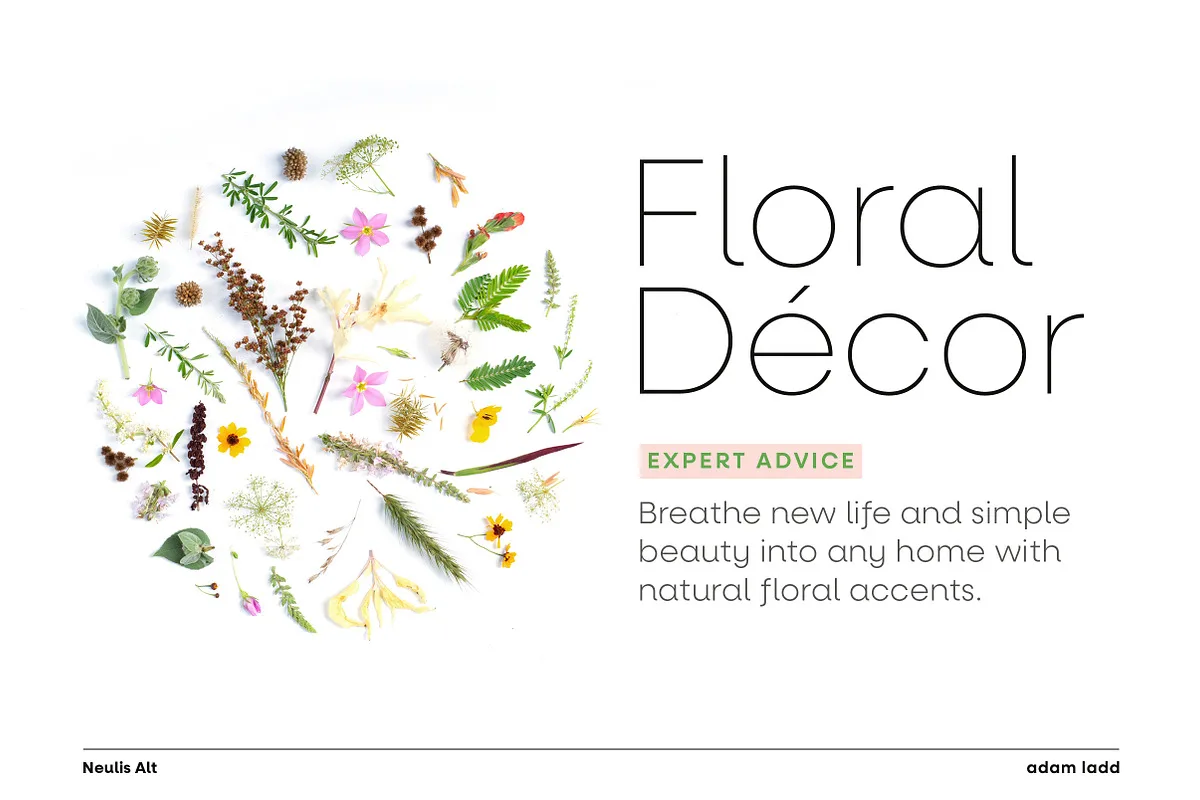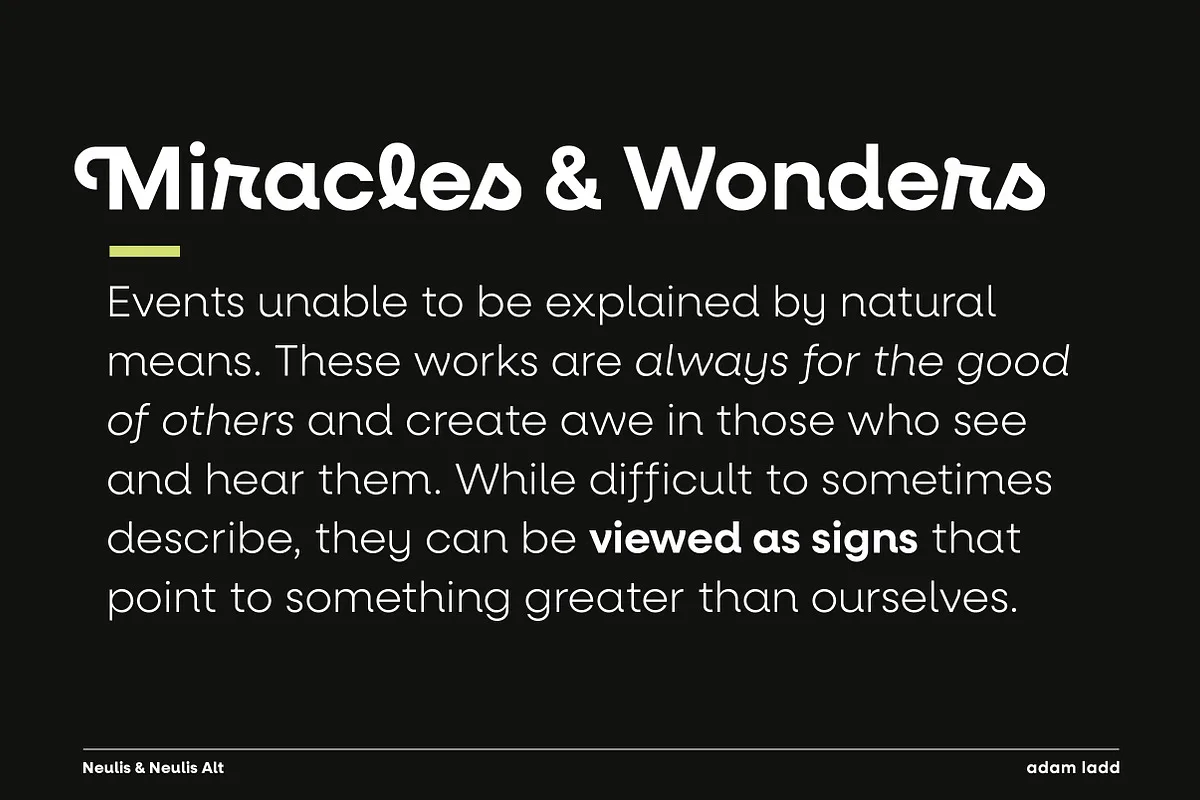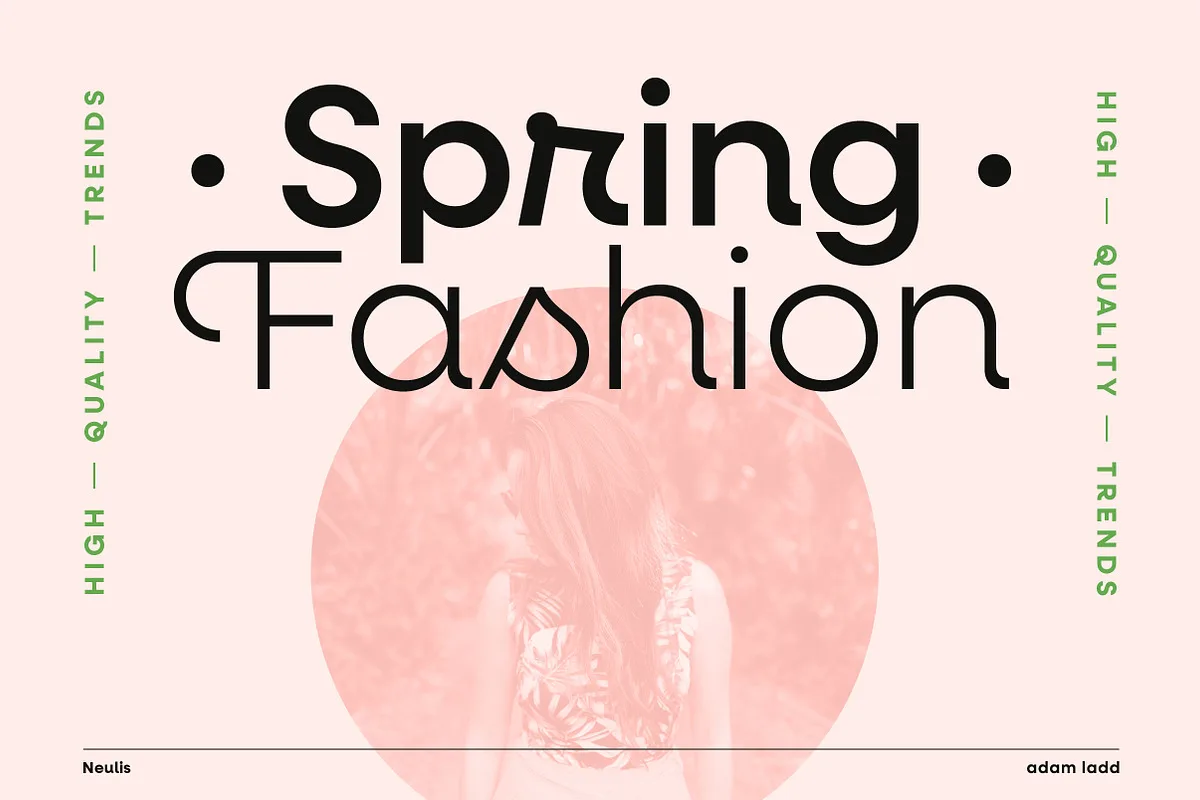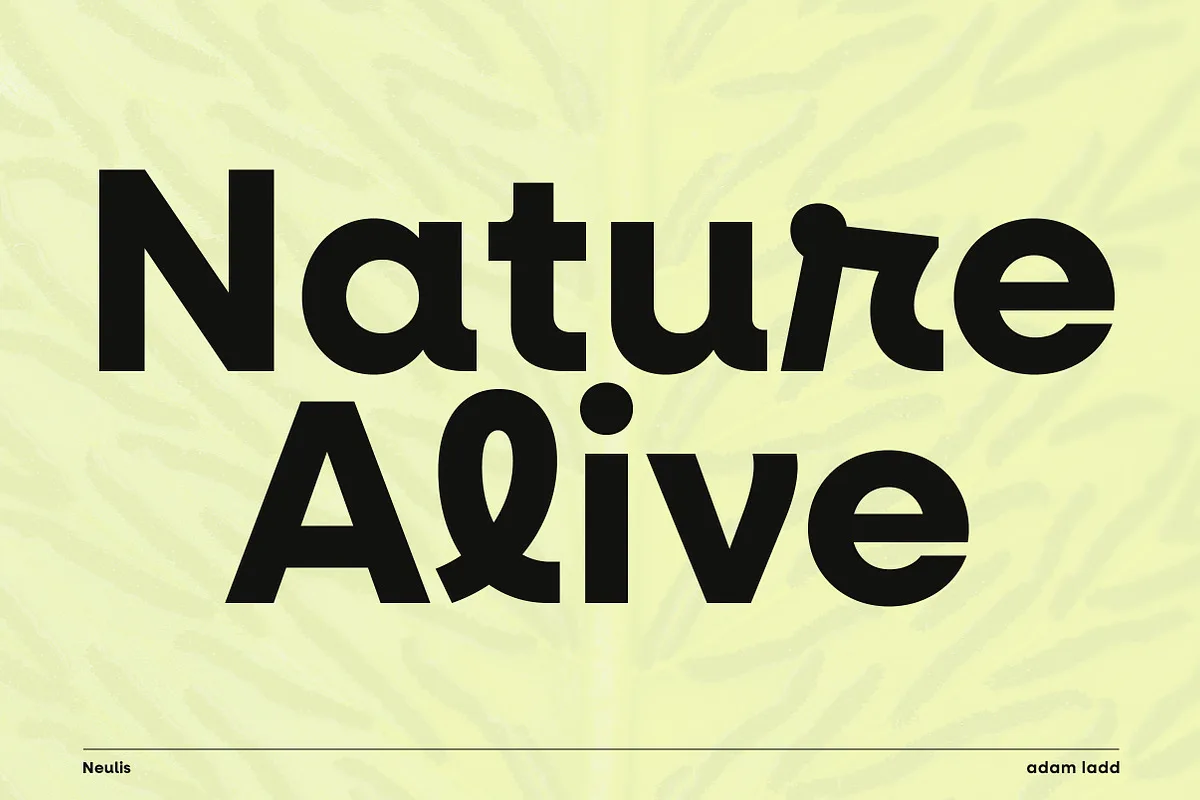
Neulis is a geometric sans serif and modern script hybrid font in two family variations.
The Neulis design presents a unique display of characters that are inspired by script letterforms (like the l, k, r, s) along with script-style exit strokes (like the a, n, u) that blend into the overall geometric skeleton of the typeface.
The Neulis Alt design gives a bit more of a restrained option by keeping with more classic sans serif letterforms.
With a monoline appearance, the type looks clean and modern. The two family options can be paired together to fit the need for both display and text situations.
Neulis provides a distinct, creative, and expressive message for branding, advertising, packaging, headlines, magazines, websites, logos, and more.
With almost 600 glyphs, this font has extensive multilingual Latin language support (100+ languages) for Western, Central, and South Eastern European.
Neulis includes many features:
- Normal and Alt families
- Swash capitals (PUA-encoded)
- Stylistic alternates (J, M, Q)
- Case-sensitive punctuation for All Caps
- Arrows
- Fractions, numerators, denominators
- Superscript, subscript
Neulis Sans Serif Font